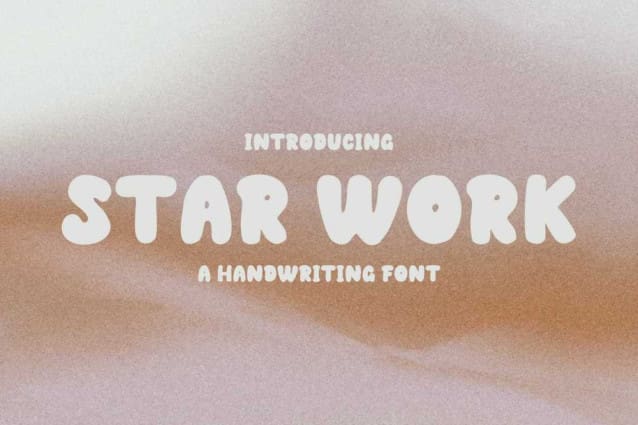
Star Work Font
Star Work Font is a chunky, comic, and cartoon display font. With its neat and joyful personality, this font will enhance any project you wish to create!